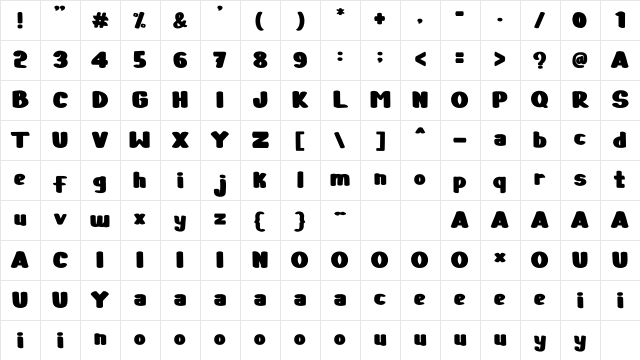
BABY JACKY Regular
Foundry: Minimalist Eyes
Designer: Minimalist Eyes
Design Context for BABY JACKY
BABY JACKY is a composed and adaptable typeface that performs quietly and consistently across a wide range of design contexts.